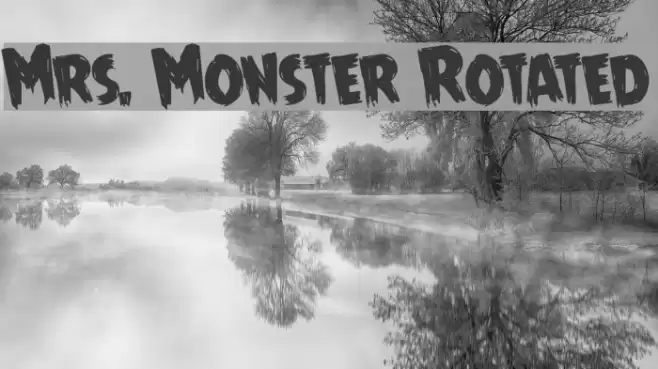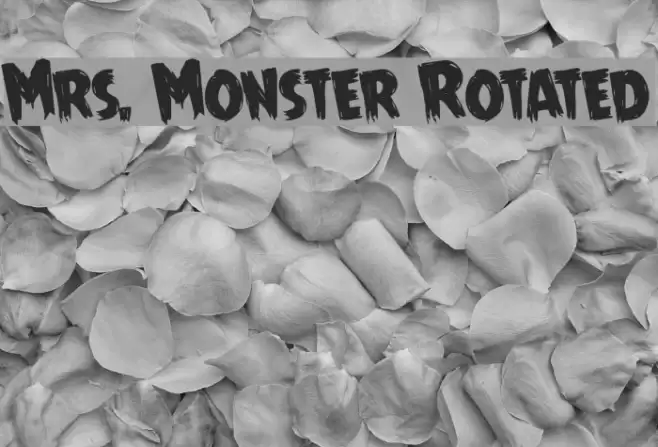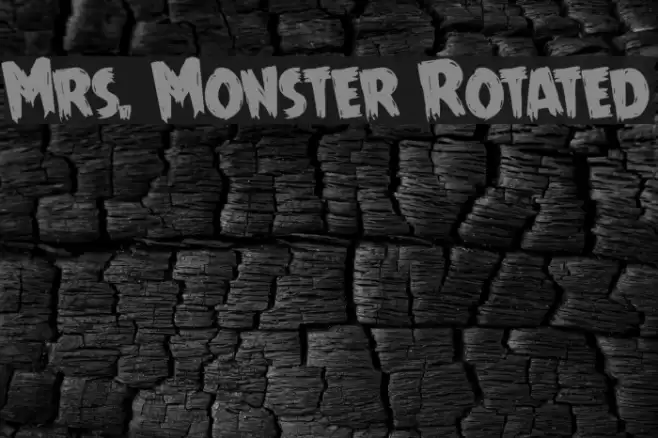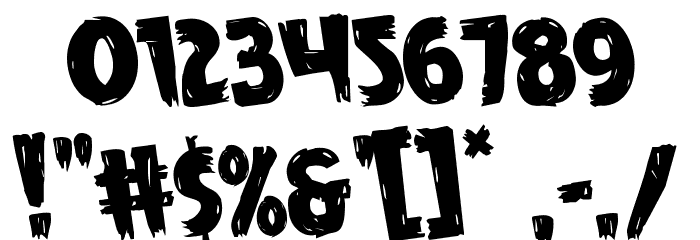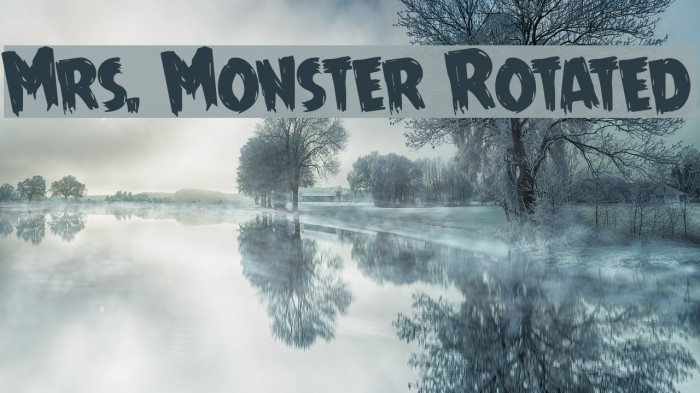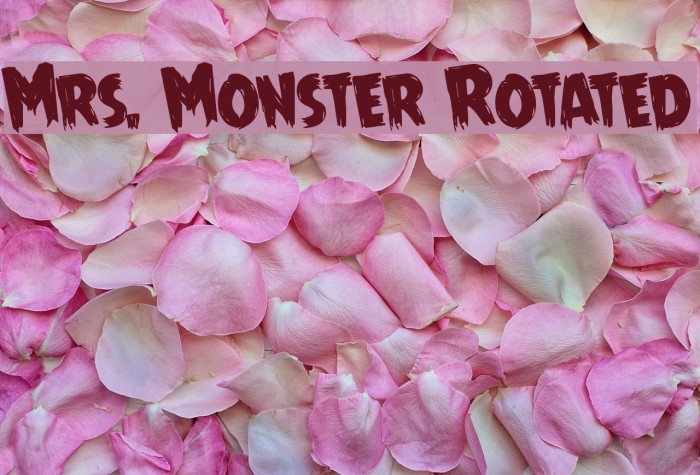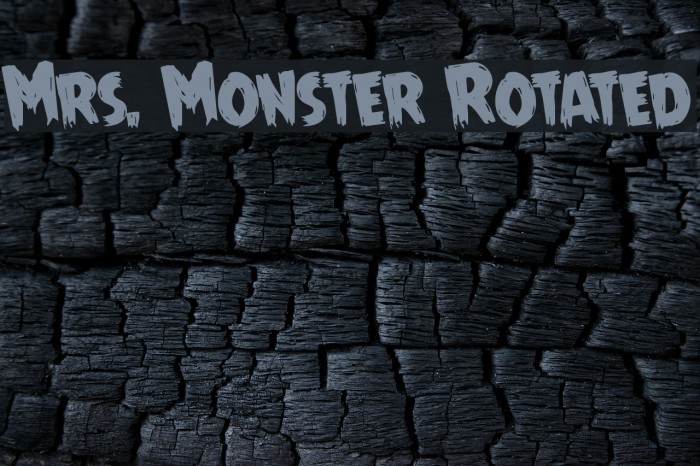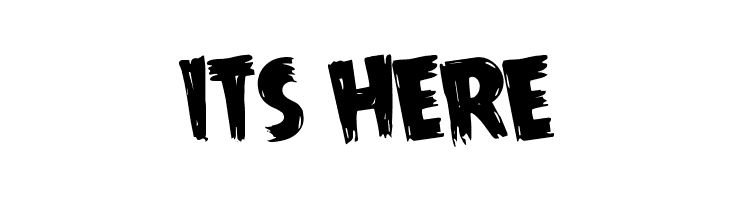
Mrs. Monster Rotated Font
Mrs. Monster Rotated Description
This font features a bold and jagged design, reminiscent of horror or monster-themed aesthetics. The characters are heavily stylized with irregular edges, giving them a rough and edgy appearance. The uppercase and lowercase letters maintain a consistent style, with exaggerated strokes and a sense of movement. Numbers and special characters follow the same design principles, ensuring a cohesive look across all glyphs. The font's unique style makes it ideal for projects that require a dramatic and eye-catching typeface.
A bold, jagged font with a horror-themed aesthetic from Uncategorized fonts.
- Proposed Projects: Perfect for Halloween posters, horror movie titles, spooky event invitations, and themed merchandise.